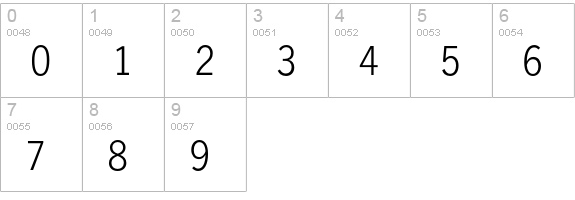
Hamburg-Xlight is a stunning font that exudes elegance and sophistication. With its sleek and slender letterforms, this font is perfect for adding a touch of refinement to any project. Whether you're designing a logo, creating a website, or crafting a beautiful invitation, Hamburg-Xlight will elevate your work to new heights. What sets Hamburg-Xlight apart is not only its impeccable design but also its accessibility. This font is available for free download at FontsMarket.com, making it accessible to designers and creatives of all levels. Now, you can bring a touch of luxury to your projects without breaking the bank. The clean and crisp lines of Hamburg-Xlight make it a versatile font that can be used in a variety of design styles. Its simplicity and legibility make it perfect for both headlines and body text, ensuring that your message will be delivered with clarity and impact. Whether you're looking to create a modern and minimalist aesthetic or add a touch of sophistication to a vintage-inspired design, Hamburg-Xlight is the perfect choice. Its timeless appeal will never go out of style, making it a font that you will turn to again and again. Download Hamburg-Xlight for free at FontsMarket.com and unlock the potential to create stunning and professional designs. Let this font be the secret weapon in your design arsenal, elevating your work and capturing the attention of your audience. Don't miss out on the opportunity to add this incredible font to your collection. Get Hamburg-Xlight today and let your creativity shine.